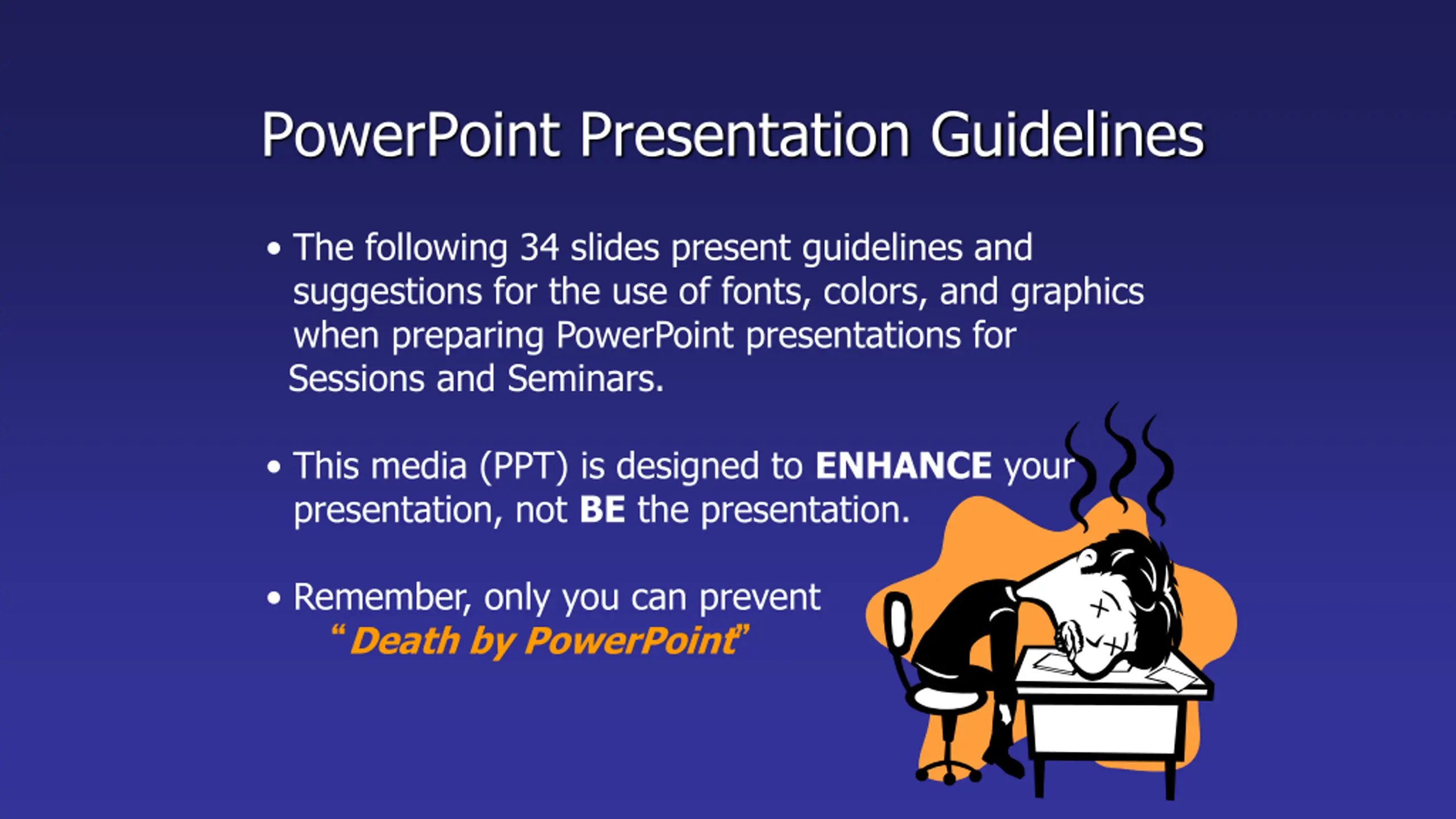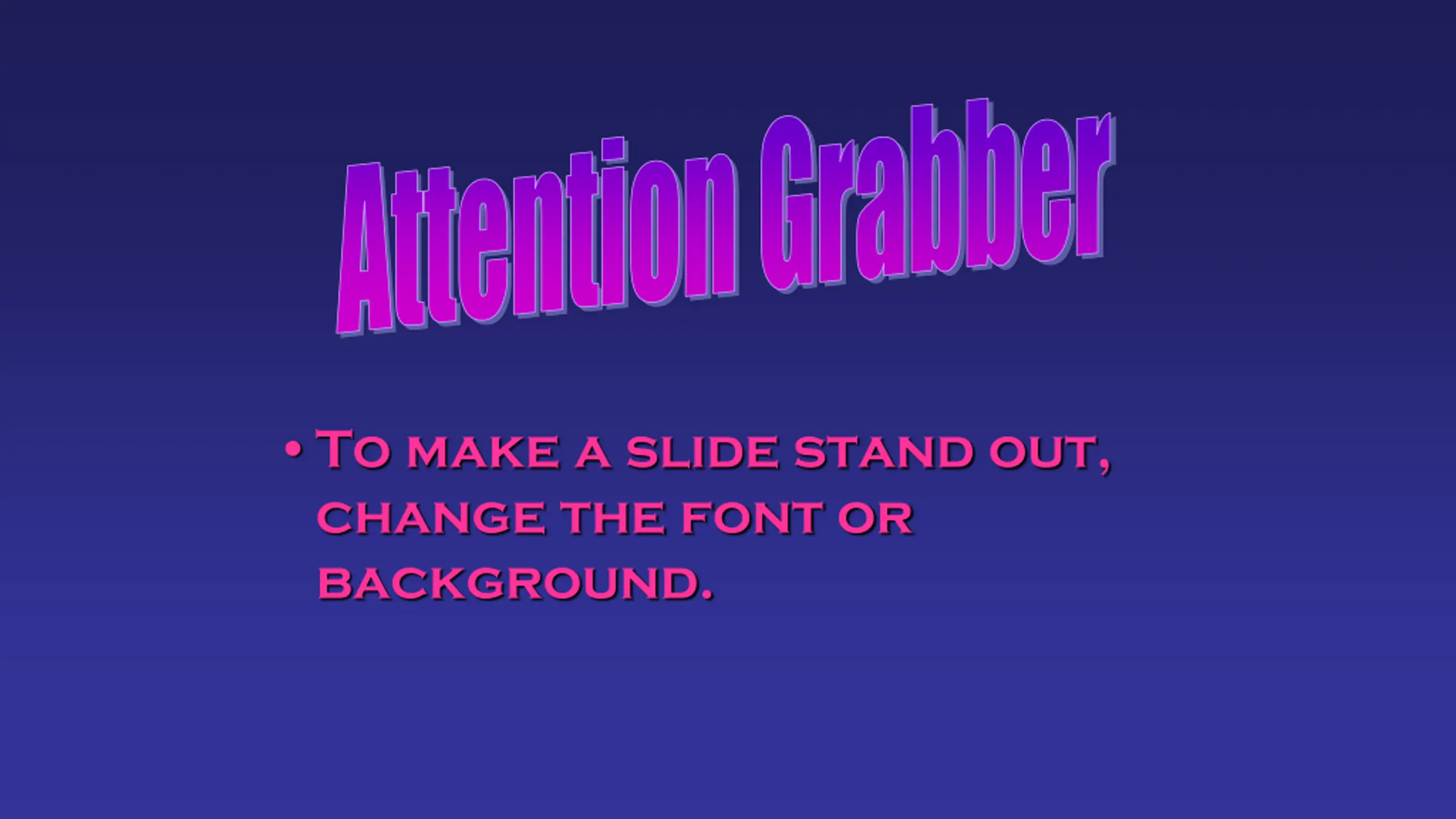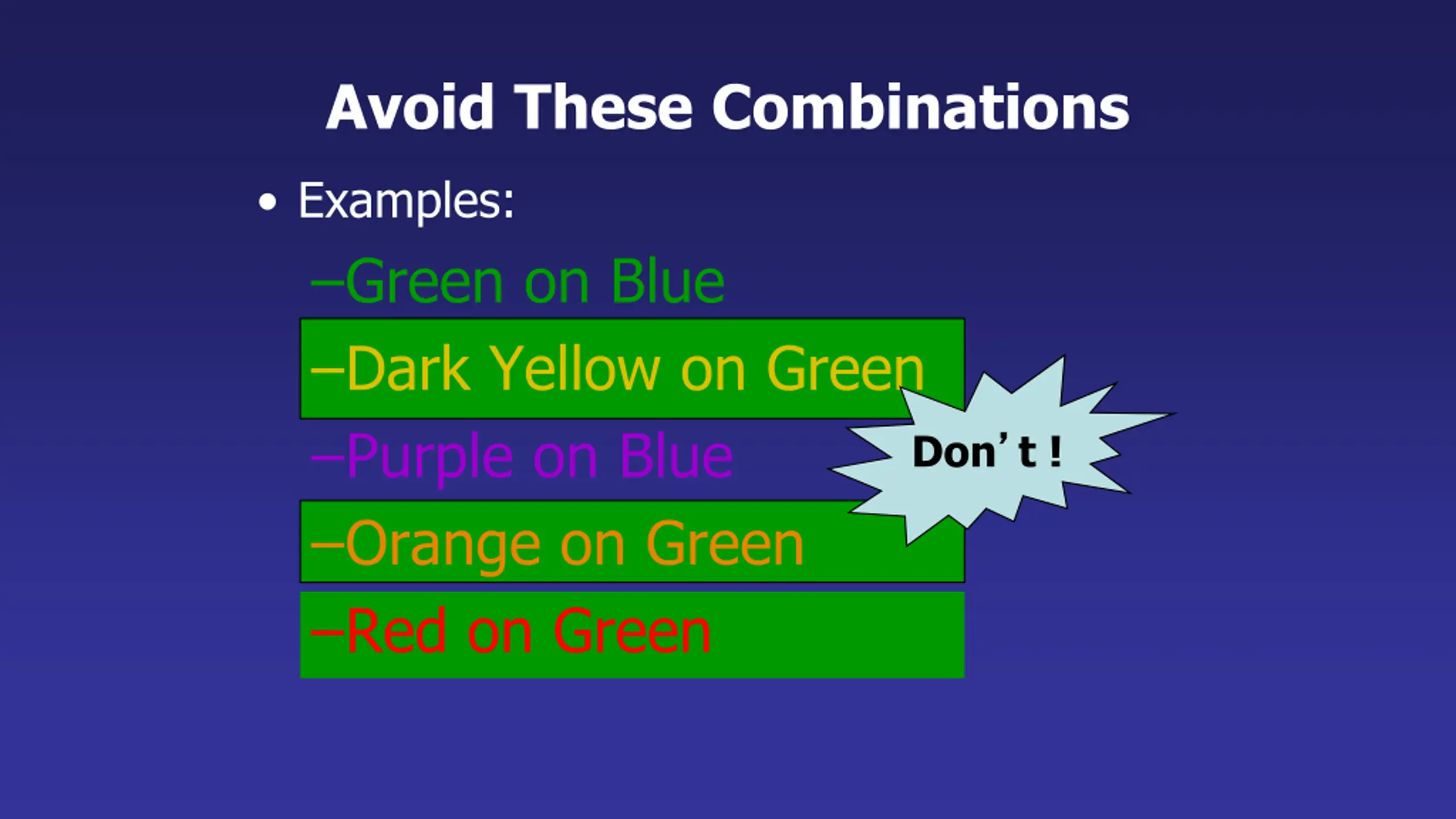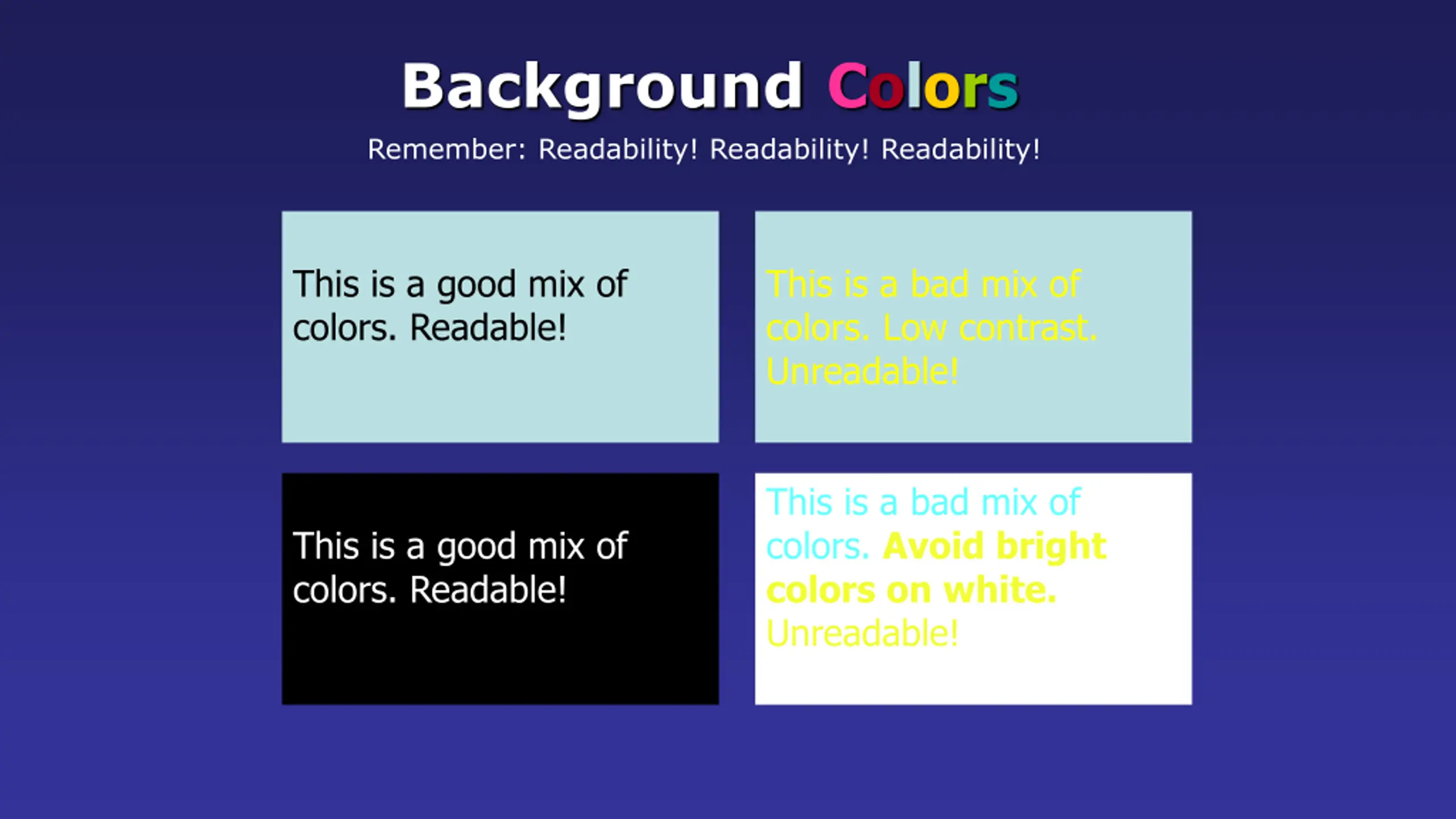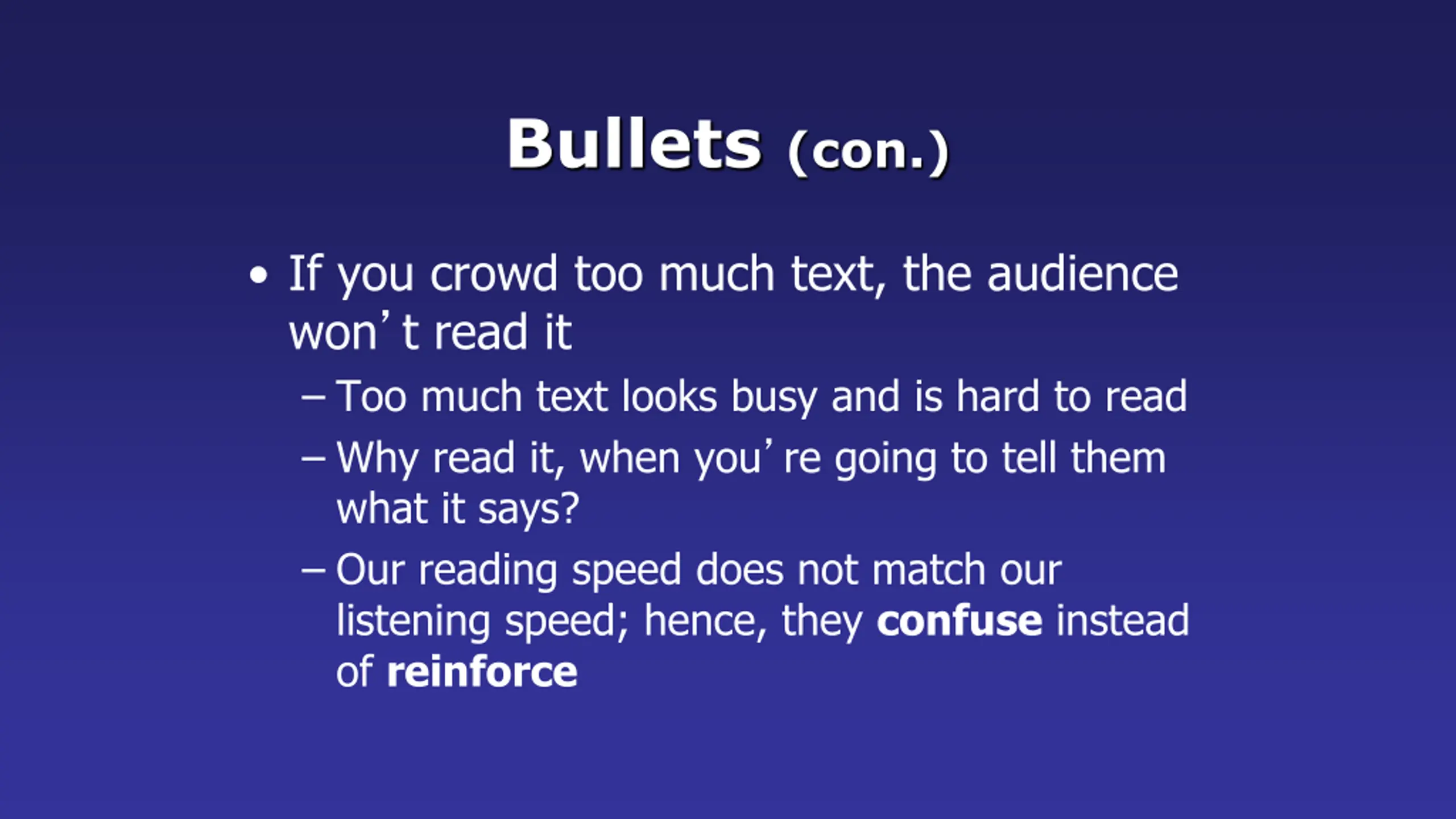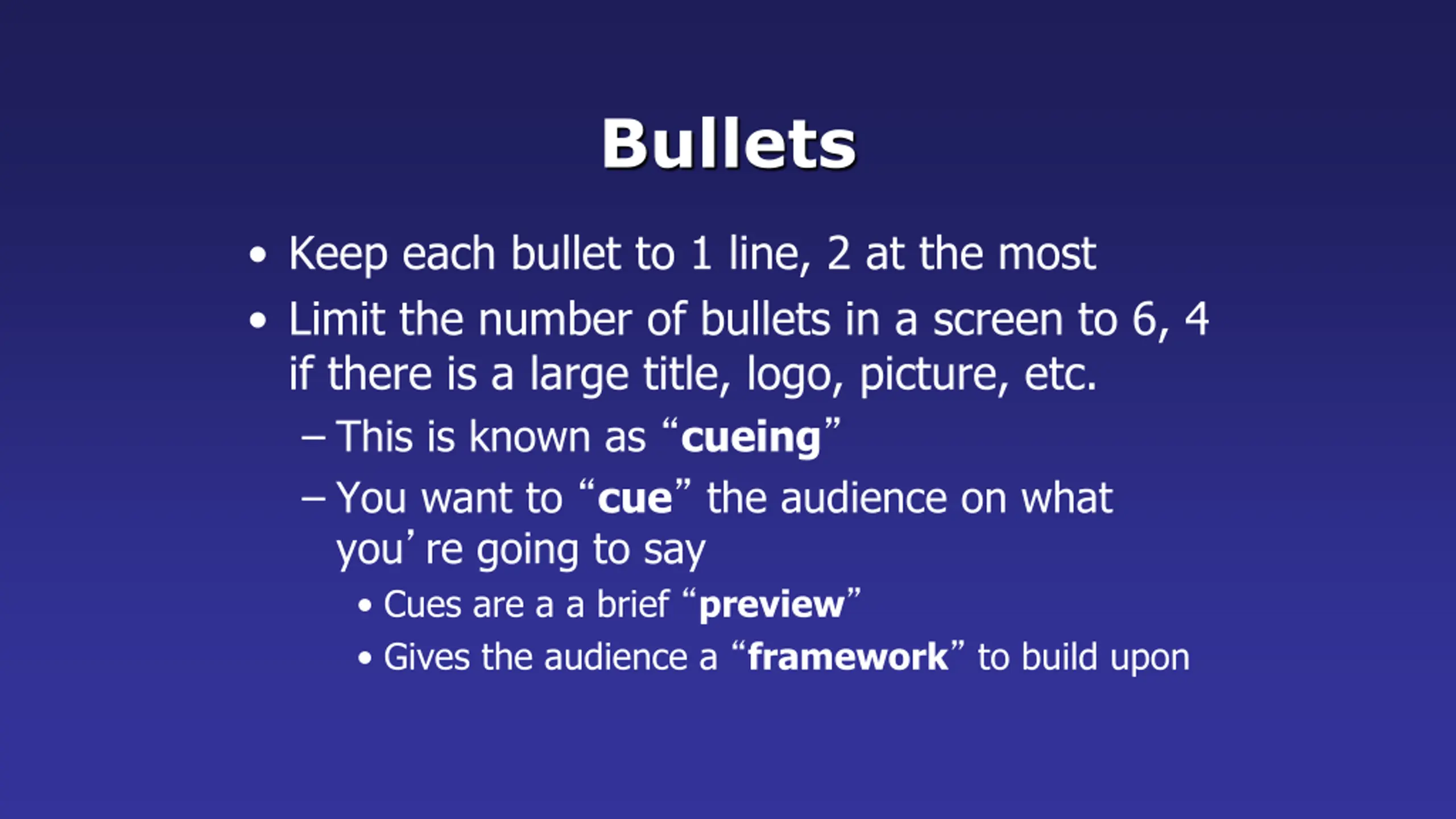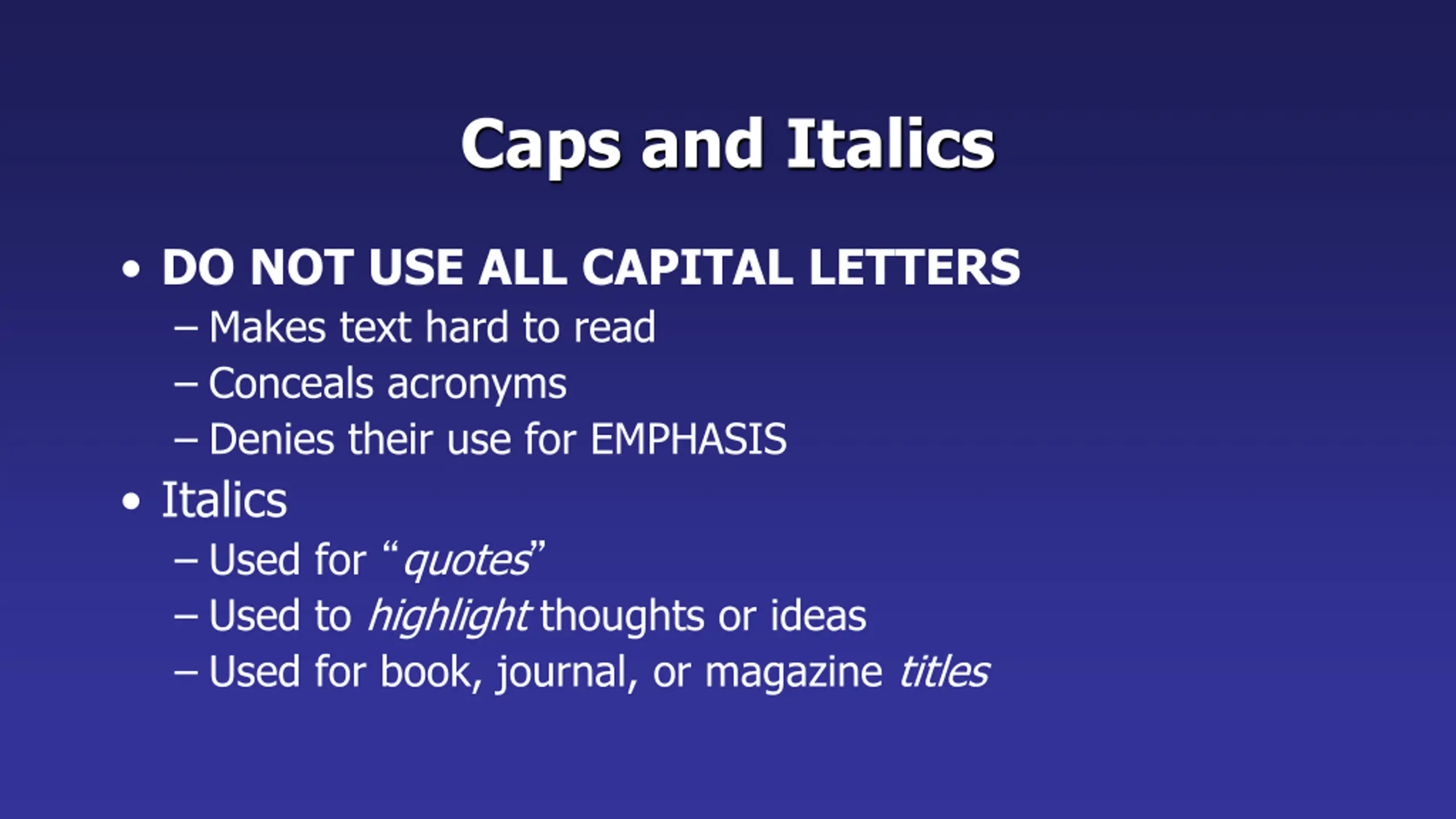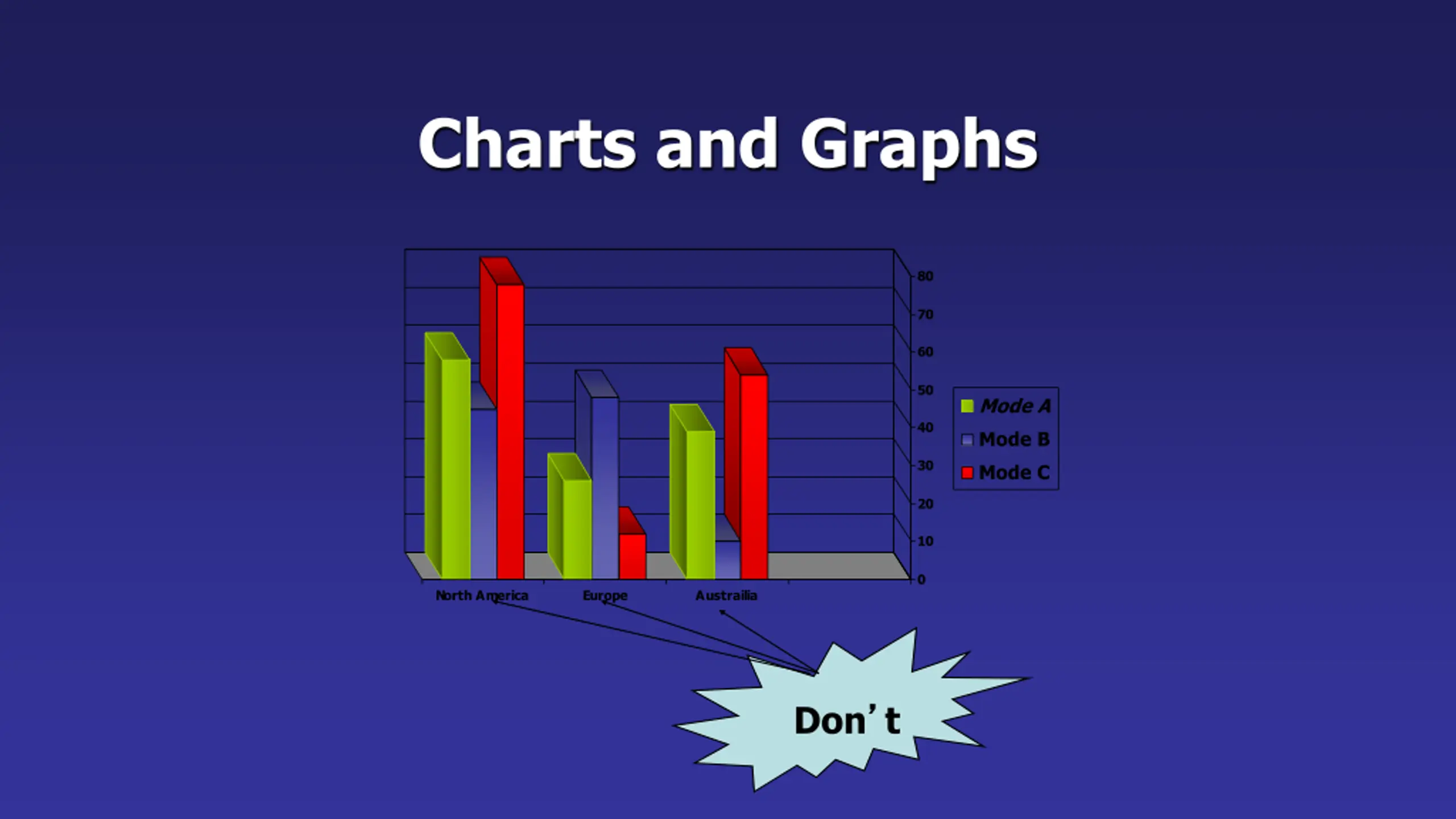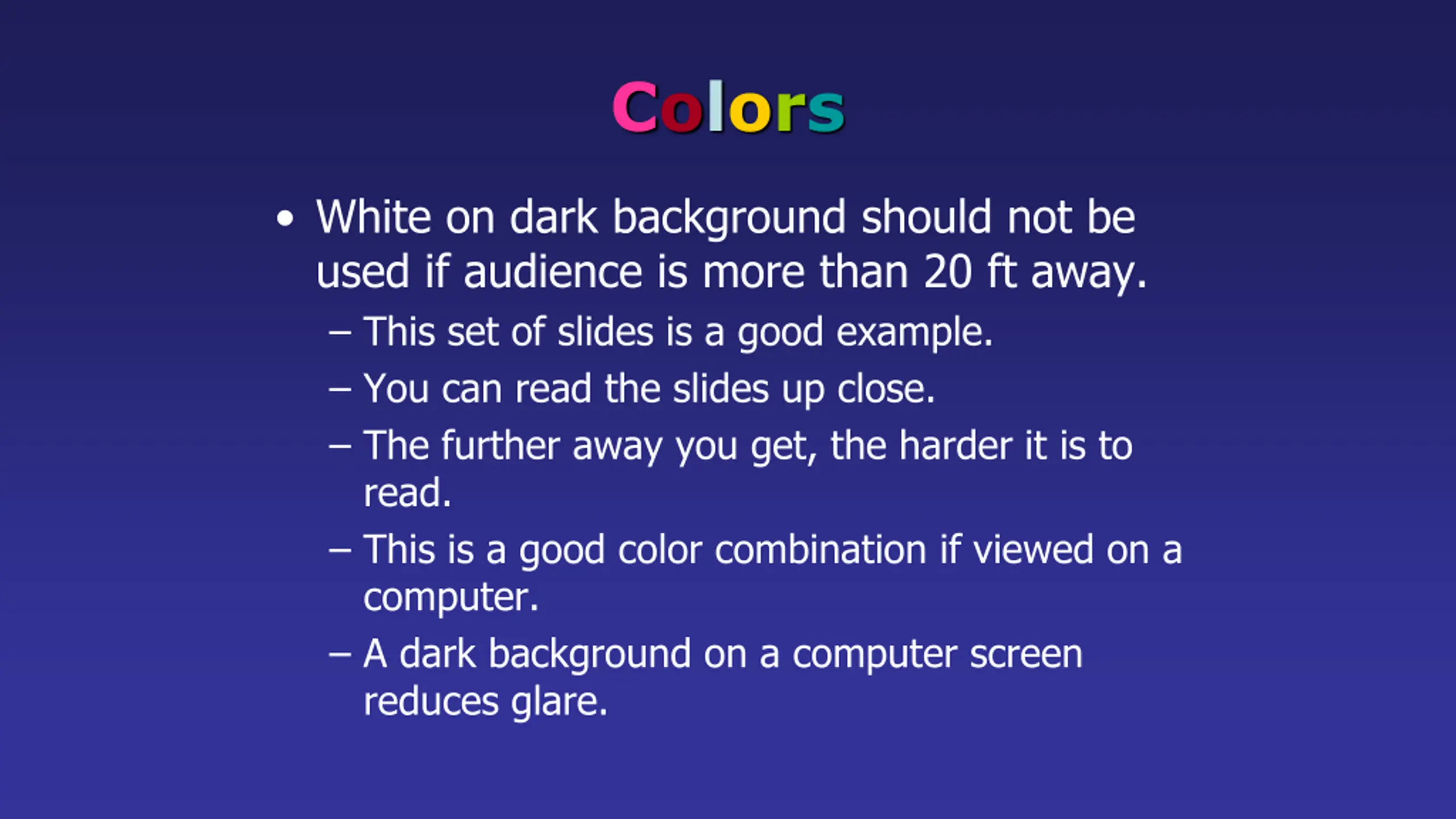
Effective Font and Design Guidelines for Engaging PowerPoint Presentations
Discover essential tips for utilizing fonts, colors, and graphics in PowerPoint presentations to enhance visual appeal and engagement. Learn how to maintain consistency in layout, font styles, and font sizes for maximum impact on your audience. Avoid common pitfalls and ensure readability throughout your slides.
PowerPoint Presentation Guidelines The following 34 slides present guidelines and suggestions for the use of fonts, colors, and graphics when preparing PowerPoint presentations for Sessions and Seminars. This media (PPT) is designed to ENHANCE your presentation, not BE the presentation. Remember, only you can prevent Death by PowerPoint
PowerPoint Slide Highlight key points or reinforce what the facilitator is saying Should be short and to the point, include only key words and phrases for visual reinforcement In order for your presentation to fit on most screens text and images should be placed within 95% of the PowerPoint slide. This action safe area is seen in the next slide.
PowerPoint Layout Layout continuity from frame to frame conveys a sense of completeness Headings, subheadings, and logos should show up in the same spot on each frame Margins, fonts, font size, and colors should be consistent with graphics located in the same general position on each frame Lines, boxes, borders, and open space also should be consistent throughout
Fonts Font Style Should be Readable Recommended fonts: Arial, Tahoma, Verdana Standardize the Font Throughout This presentation is in Tahoma Do !
Font Size The larger, the better. Remember, your slides must be readable, even at the back of the room. This is a good title size Verdana 40 point A good subtitle or bullet point size Verdana 32 point Content text should be no smaller than Verdana 24 point This font size is not recommended for content. Verdana 12 point.
Font Size Combining small font sizes with bold or italics is not recommended: What does this say? Garamond Font, Italic, Bold 12pt. This is very difficult to read. Times Font, Bold, 12pt. Don t ! This point could be lost. Century Gothic Font, Bold, Italic, 14pt. No one will be able to read this. Gill Sans Font, Condensed Bold, 12pt Small fonts are okay for a footer, such as: TIPS Presentation: 3/8/2004 Dawn Thomas, CRM
Don t ! Fonts Don Don t Sacrifice Readability for Style Don Don t Sacrifice Readability for Style Don t Don t Sacrifice Readability for Style Don Don t Sacrifice Readability for Style Readability for Style
Caps and Italics DO NOT USE ALL CAPITAL LETTERS Makes text hard to read Conceals acronyms Denies their use for EMPHASIS Italics Used for quotes Used to highlight thoughts or ideas Used for book, journal, or magazine titles
Use a Template Use a set font and color scheme. Differentstylesaredisconcertingto the audience. You want the audience to focus on what you present, not the way you present.
Use the Same Background on Each Slide Do !!
Dont use multiple backgrounds in your presentation Changing the style is distracting Don t!
Colors Reds and oranges are high-energy but can be difficult to stay focused on. Greens, blues, and browns are mellower, but not as attention grabbing. Reds and Greens can be difficult to see for those who are color blind.
Avoid These Combinations Examples: Green on Blue Dark Yellow on Green Purple on Blue Orange on Green Red on Green Don t !
Colors White on dark background should not be used if audience is more than 20 ft away. This set of slides is a good example. You can read the slides up close. The further away you get, the harder it is to read. This is a good color combination if viewed on a computer. A dark background on a computer screen reduces glare.
Colors Large Hall Events Avoid White Backgrounds The white screen can be blinding in a dark room Dark Slides with Light Colored Text Work Best Don t
The Color Wheel Colors separated by another color are contrasting colors (complementary) Adjacent colors harmonize with one another (Green and Yellow) Colors directly opposite one another are said to CLASH Clashing colors provide readability Orange on Blue Do !
Attention Grabber To make a slide stand out, change the font or background.
YOU Do not use the media to hide you The audience came to SEE you The media should ENHANCE the presentation, not BE the presentation If you re only going to read from the slides, then just send them the slides! Remember, only you can prevent Death by PowerPoint